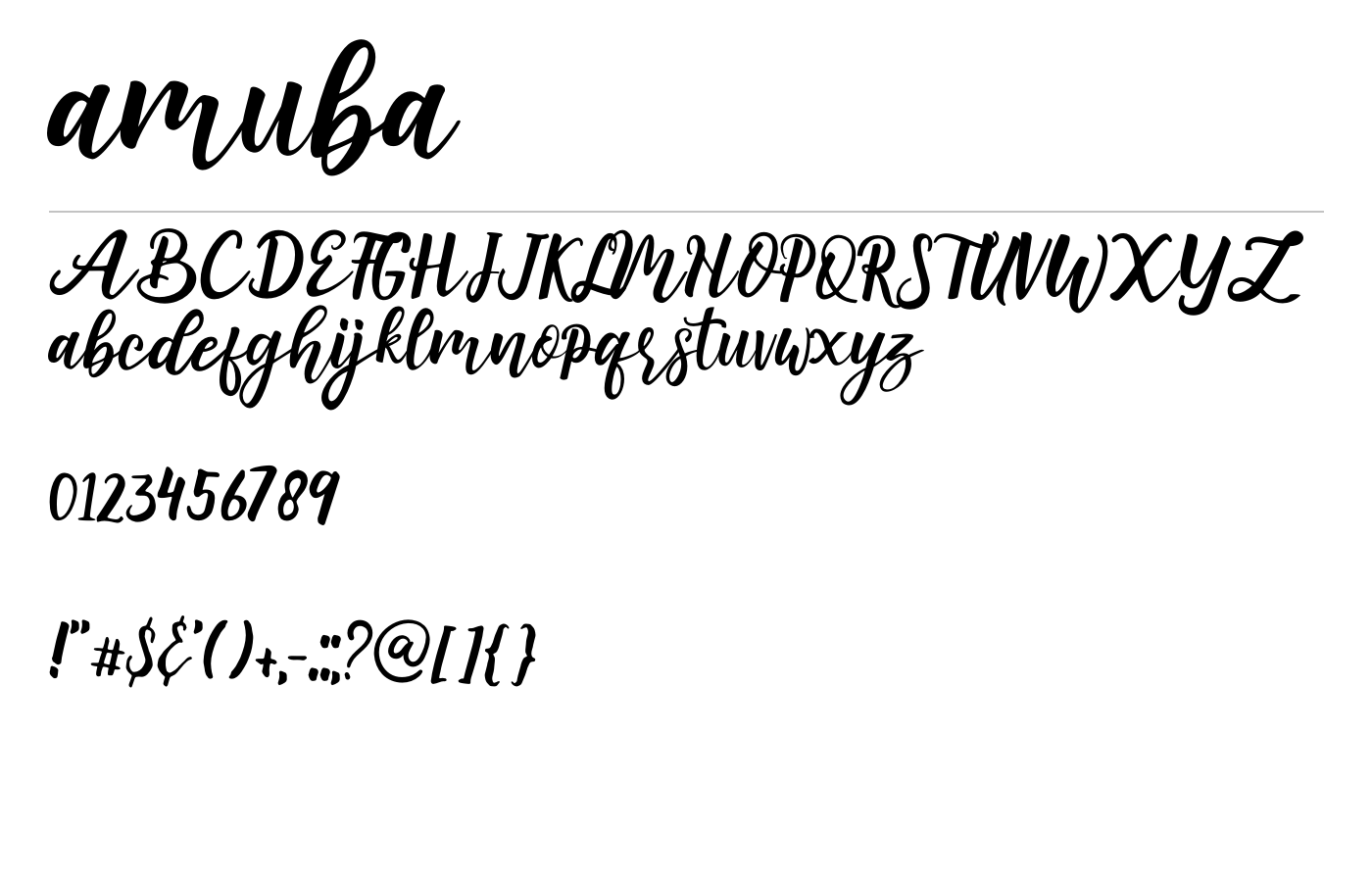
Amuba is a graceful script font with flowing, connected letterforms that combine elegance with a casual charm. Its medium weight and moderate contrast give it a smooth, inviting look, making it ideal for stylish branding, invitations, and creative headlines. This font’s handwritten feel adds a personal touch, perfect for projects that want to convey warmth and friendliness with a touch of sophistication.
amuba Font
About amuba Font
| Designer | Haksen Letters |